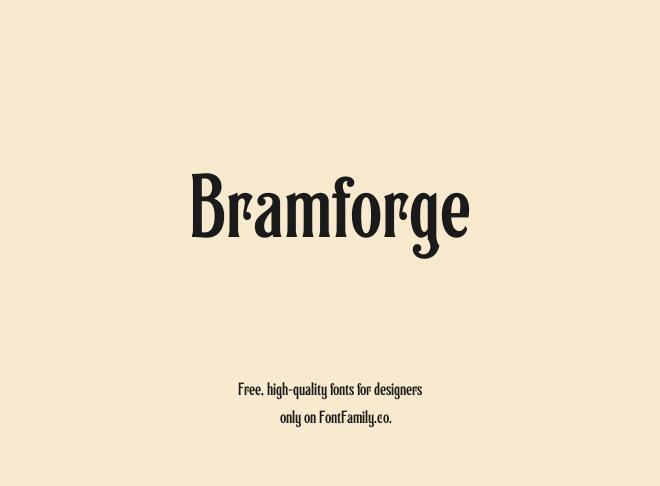
Bramforge Font
Bramforge Font, designed by the renowned Bramforge Foundry, is a vintage-inspired, bold display typeface that captures the essence of rustic and retro design elements. This font, with its strong and prominent characters, makes a significant impact on any design it graces. Bramforge Font is an excellent choice for branding projects, logo design, and any creative endeavor that requires a distinct vintage touch. It shares similarities with classic typography but stands out with its unique rustic charm. Bramforge Font is a perfect blend of past and present, making it a great choice for designers looking to infuse a sense of nostalgia into their modern designs. Its open font license makes it accessible for both personal and commercial use, making it a versatile addition to any designer's toolkit.